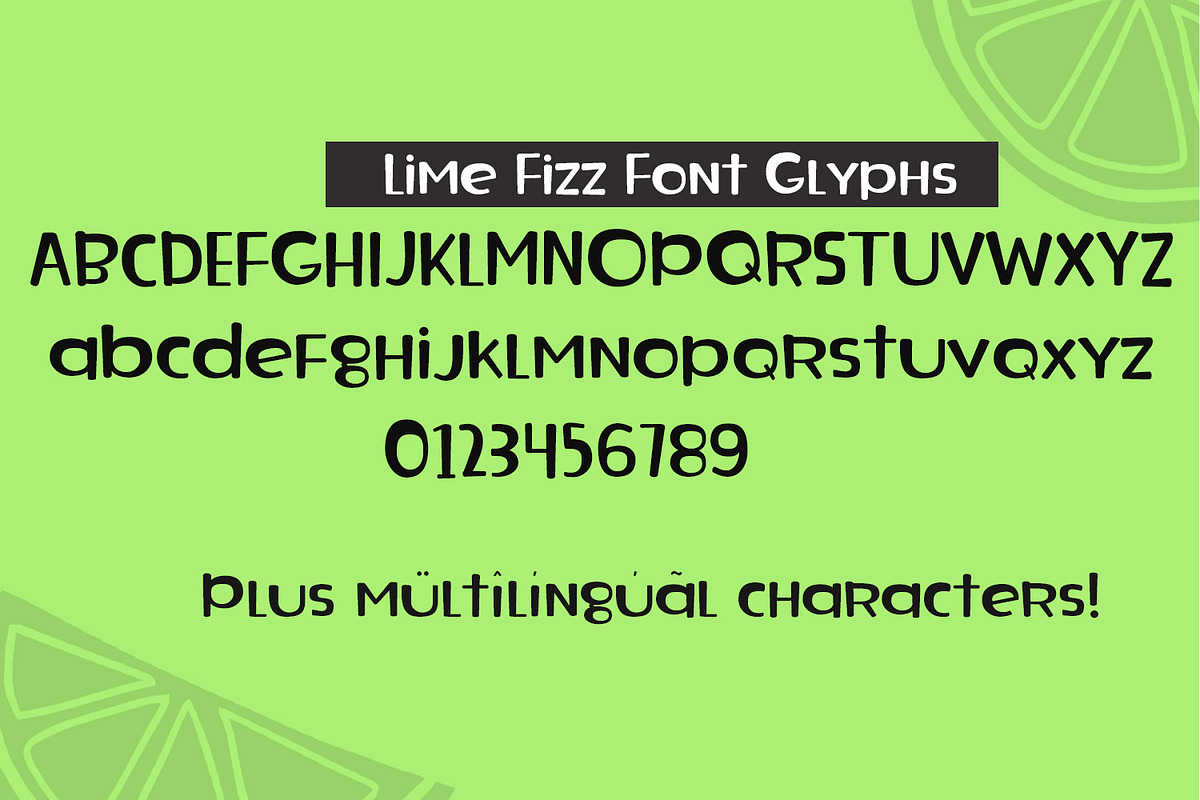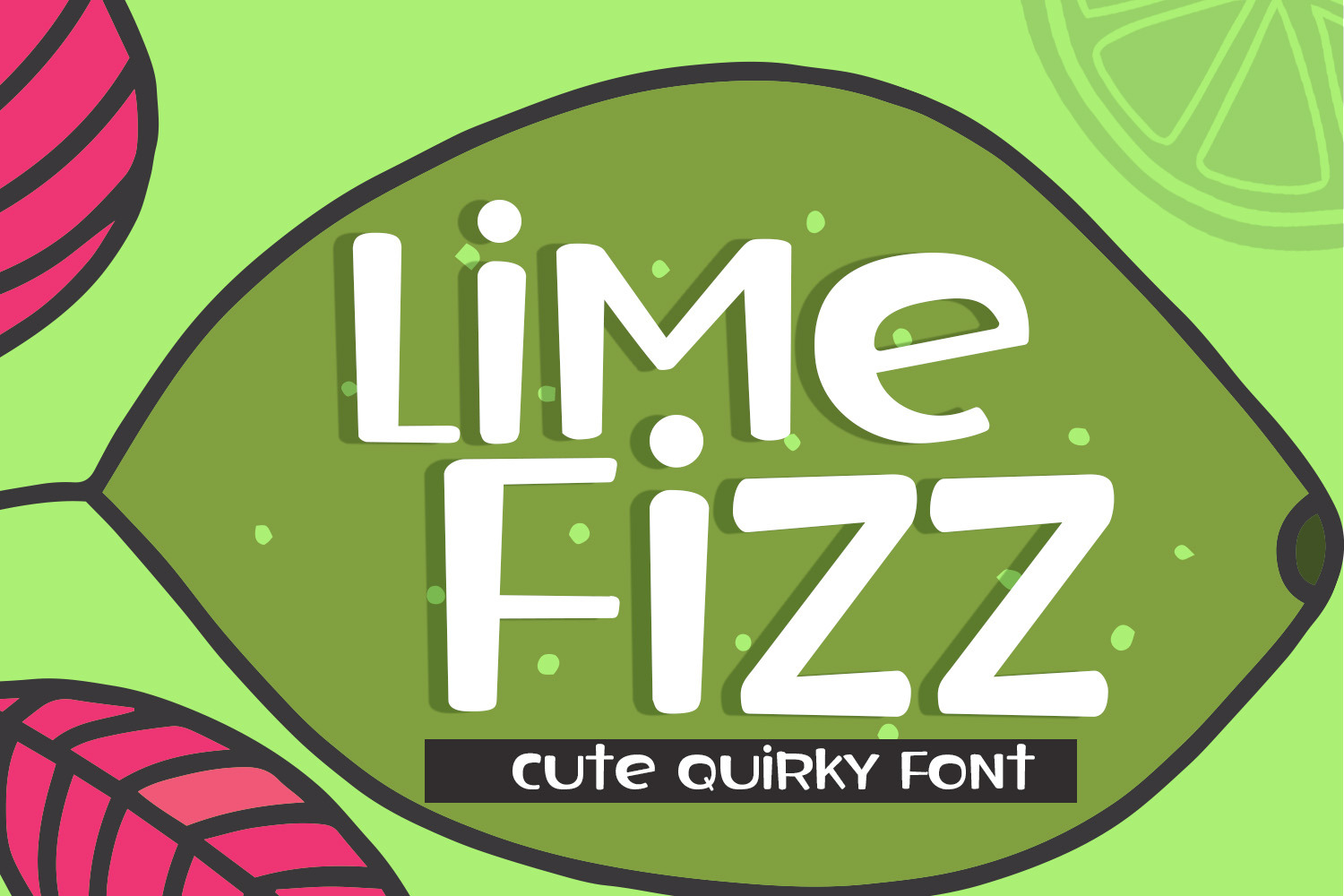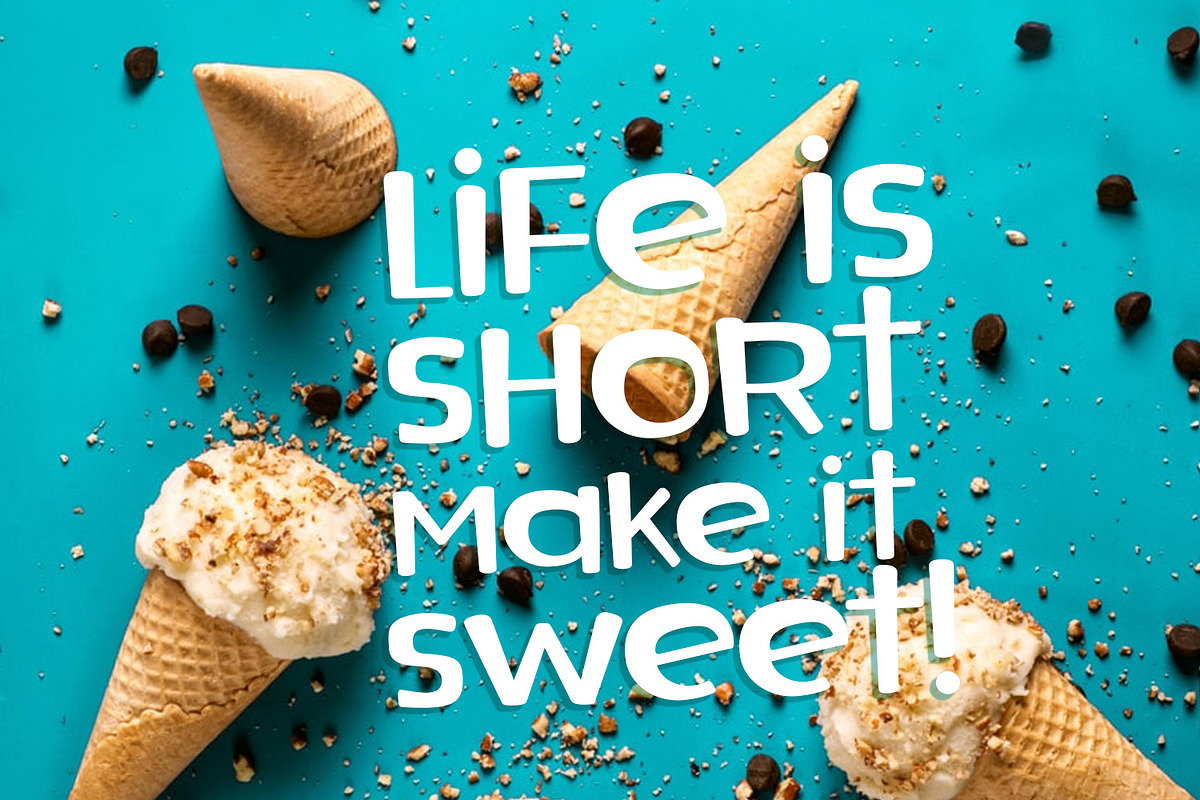
Lime Fizz Sans Serif Font
Introducing Lime Fizz Sans Serif Font! This smooth font is perfect for kids designs, labeling kids school items, or any design that calls for a sweet youthful touch!